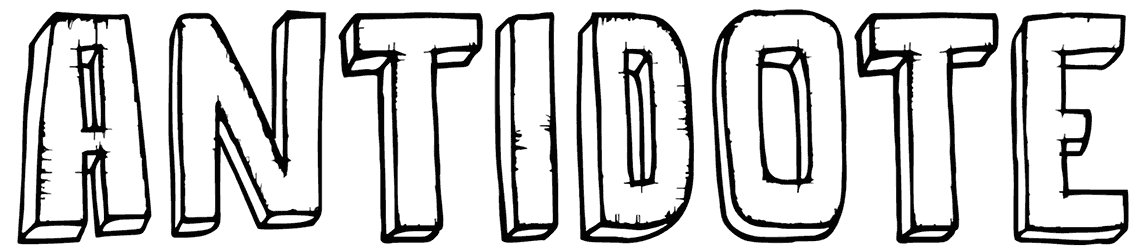
DK Antidote Font
There is no need to be worried about finding a good font for designing graphic content like illustrations, flyers, brochures, and applications when you have access to our rich library and enjoy a magical doodle font such as DK Antidote.
Although this all-caps 3D font doesn’t fully support numbers, due to its hollow characters and outline style, it can convey a sense of dynamic, art, eerie, or dynamic to the audience.